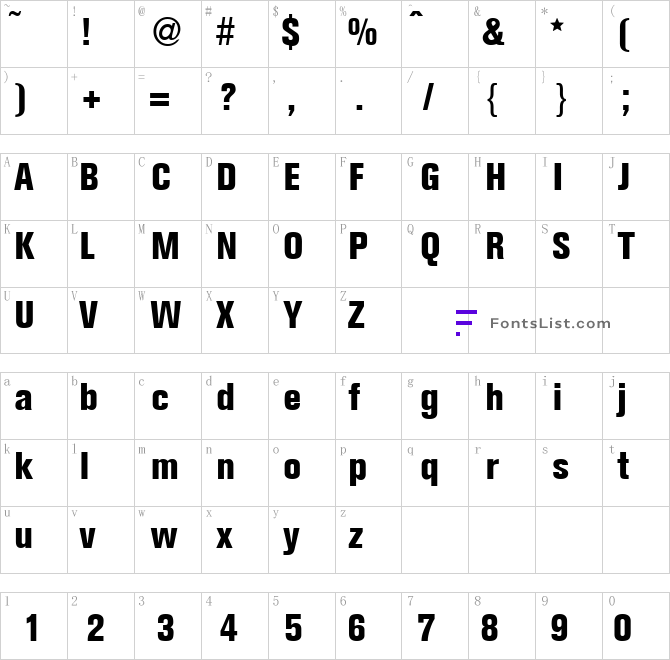
- Font Name:AkzentCondExtrabold
AkzentCondExtrabold-Regular.ttf is a very beautiful artistic font, AkzentCondExtrabold-Regular.ttf is widely used in the design and printing of various books and pictures,AkzentCondExtrabold-Regular.ttf has a strong visual impact,AkzentCondExtrabold-Regular.ttf is a commonly used font in newspapers, magazines and books, and is used in posters, e-commerce Poster design, store design, logo design, font design and other fields.AkzentCondExtrabold-Regular.